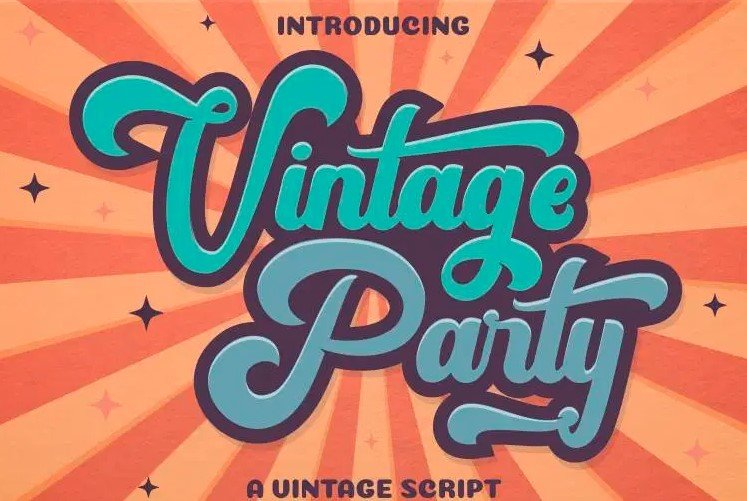
I'm excited to share with you an exceptional high-quality typeface created by our talented designers. It's called Vintage Party Font, and it is an ideal choice for large screen designs. This typeface boasts consistent alphabetical letters and remarkable stylish designs that will provide your projects with a distinctive appearance.